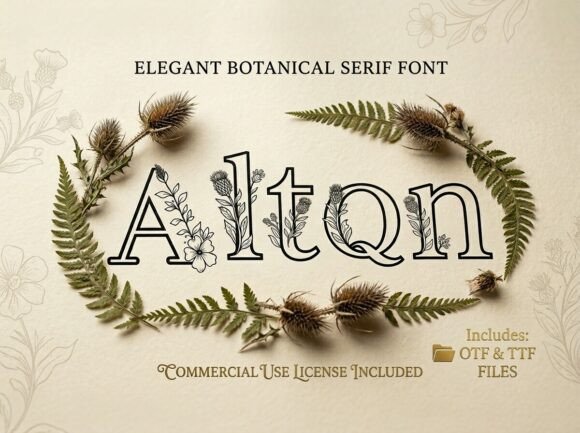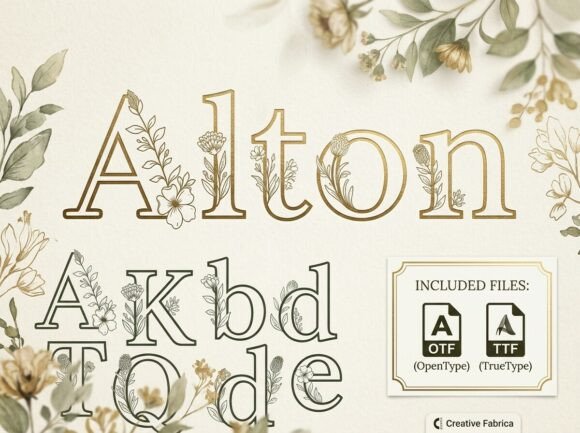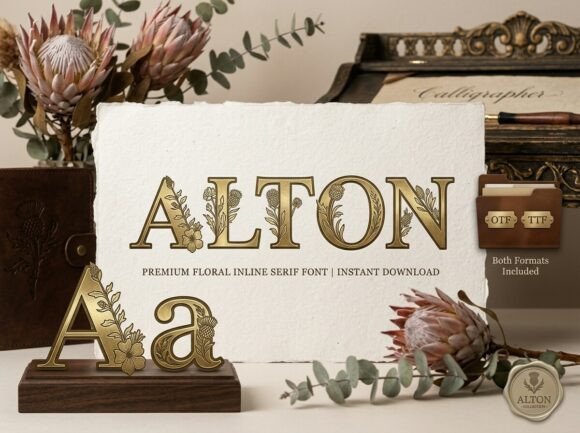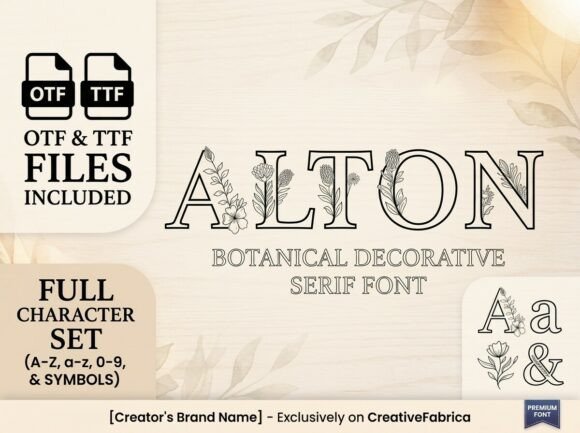
Introducing Alton Font: The Epitome of Modern Botanical Elegance
In the realm of typography, few fonts have managed to capture the essence of modern botanical elegance as effortlessly as Alton. This decorative serif font is a masterpiece of design, boasting a unique blend of clean lines, minimalist foliage, and organic flair. Alton is not just a font; it’s a statement piece, a reflection of a brand’s commitment to innovation, transparency, and sustainable luxury.
The Design Philosophy Behind Alton
Alton’s design is rooted in the “organic-modernist” aesthetic, a concept that balances geometric clarity with the fluid grace of natural stems and wild blossoms. This font is characterized by its clean, outlined anatomy and integrated minimalist foliage, creating a visually striking effect that is both modern and timeless. The result is a typographic masterpiece that exudes sophistication, elegance, and a deep connection to nature.
Perfect for Brands that Value Sustainability and Luxury
Alton is an essential tool for brands that prioritize innovation, transparency, and sustainable luxury. Its unique design makes it an ideal choice for high-end skincare branding, minimalist event stationery, modern garden-to-table menus, and eco-conscious lifestyle logos. Whether you’re a luxury brand or an eco-friendly startup, Alton provides the perfect typographic solution to elevate your visual identity.
Key Features of Alton Font
• Clean and Outlined Anatomy: Alton’s clean lines and outlined design create a crisp, modern look that is perfect for high-end branding.
• Integrated Minimalist Foliage: The font’s minimalist foliage adds a touch of natural elegance, making it ideal for botanical-inspired designs.
• Geometric Clarity: Alton’s geometric design ensures clarity and legibility, making it suitable for a wide range of applications.
• Organic Flair: The font’s organic elements add a touch of whimsy and sophistication, perfect for brands that value creativity and individuality.
Best Use Cases for Alton Font
Alton’s versatility makes it suitable for a variety of applications, including:
• High-end Skincare Branding: Alton’s luxurious feel and botanical-inspired design make it perfect for high-end skincare brands.
• Minimalist Event Stationery: The font’s clean lines and elegant design make it ideal for minimalist event stationery, such as wedding invitations and event programs.
• Modern Garden-to-Table Menus: Alton’s organic flair and geometric clarity make it suitable for modern garden-to-table menus, adding a touch of sophistication to your culinary experience.
• Eco-Conscious Lifestyle Logos: The font’s eco-friendly vibe and luxurious feel make it perfect for eco-conscious lifestyle logos, conveying a brand’s commitment to sustainability and luxury.
Why Choose Alton Font?
In a world where typography plays a crucial role in shaping brand identity, Alton stands out as a beacon of modern botanical elegance. Its unique design, versatility, and commitment to sustainability make it an essential tool for designers and crafters. By choosing Alton, you’re not just selecting a font; you’re embracing a design philosophy that values innovation, transparency, and luxury.
Alton font is a game-changer in the world of typography, offering a unique blend of modern elegance and botanical charm. Its clean lines, minimalist foliage, and organic flair make it perfect for brands that value innovation, transparency, and sustainable luxury. Whether you’re a designer, crafter, or brand owner, Alton provides the perfect typographic solution to elevate your visual identity and make a lasting impression.